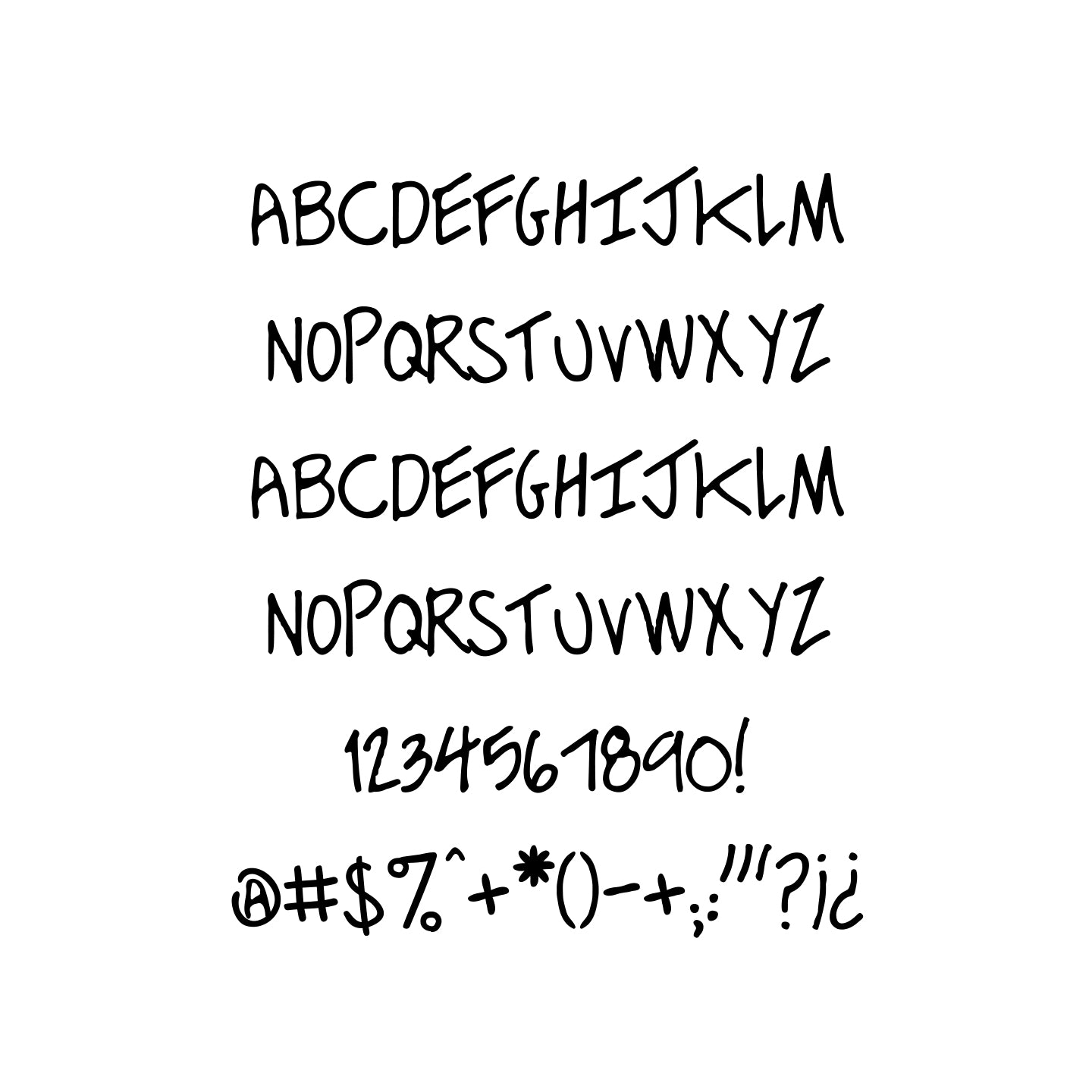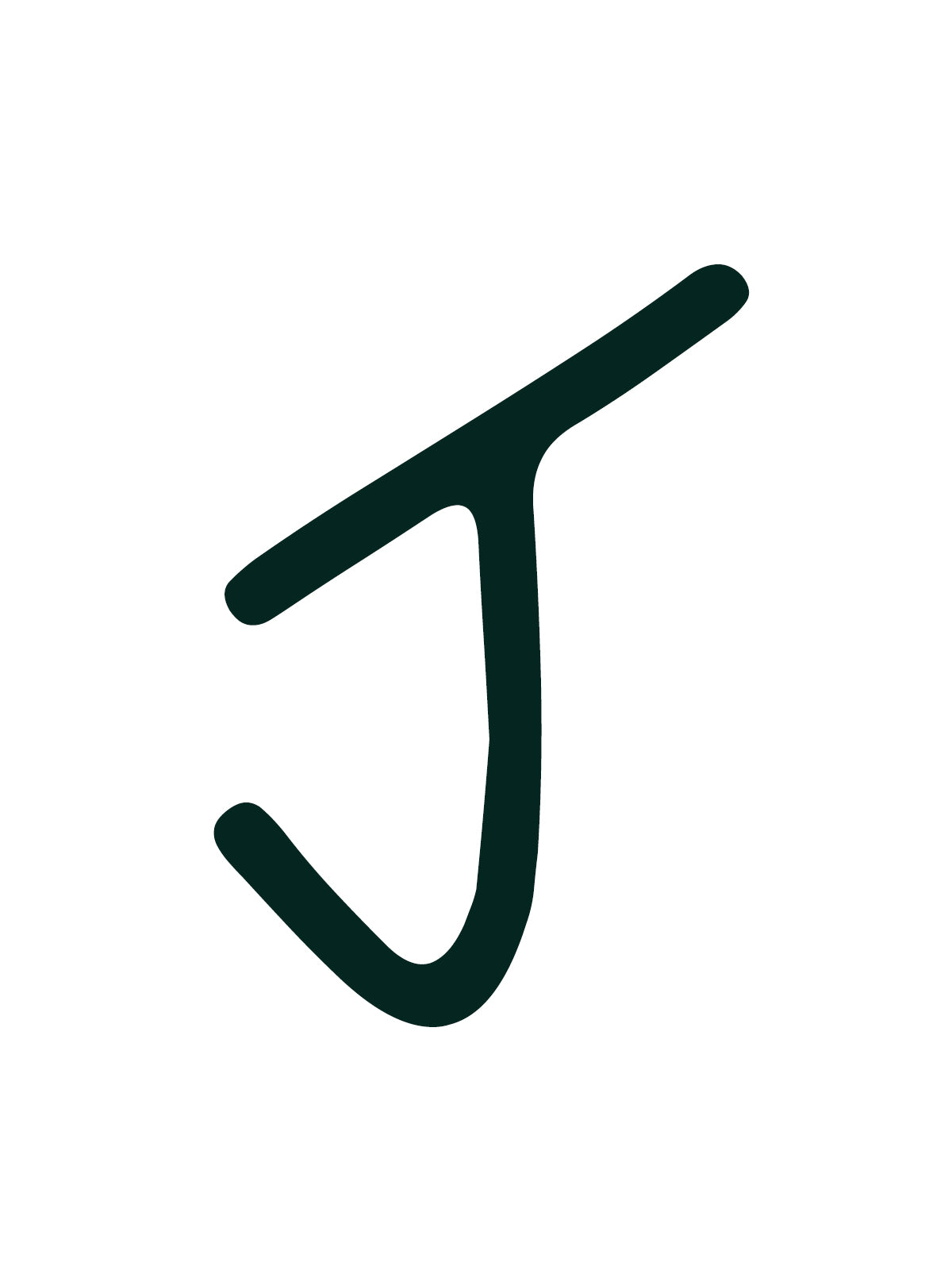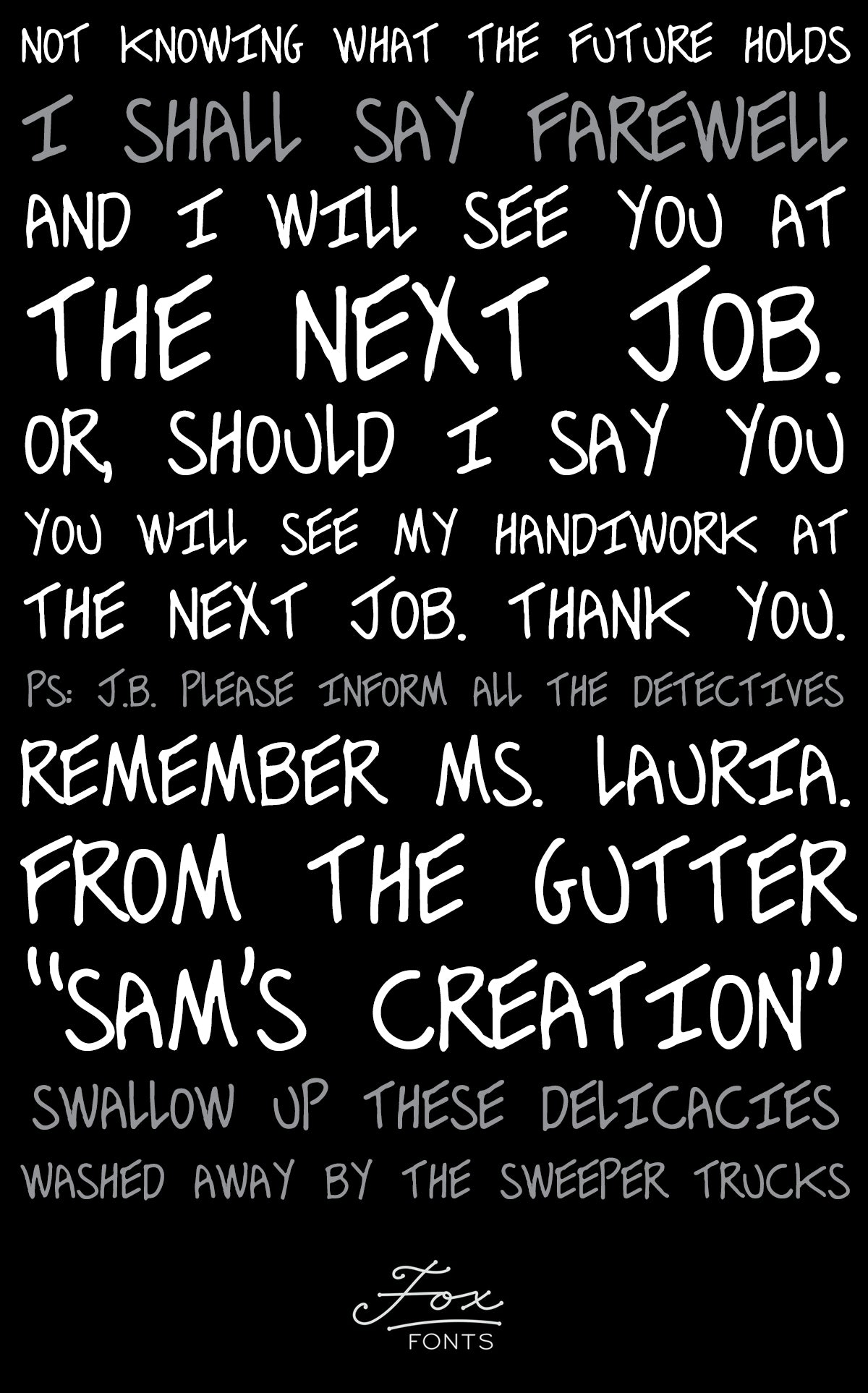
Murderino 2 Son of Sam
Murderino fonts are based on letters of evidence from infamous crimes. Half of proceeds benefits the Legal Aid Foundation of Los Angeles, which provides legal support to people living in poverty.